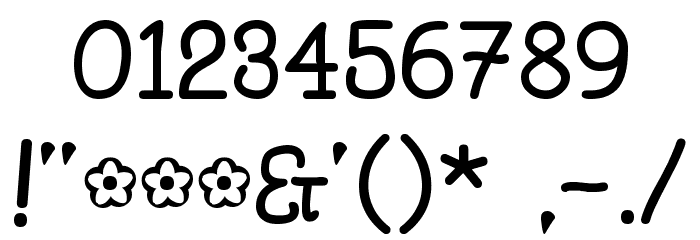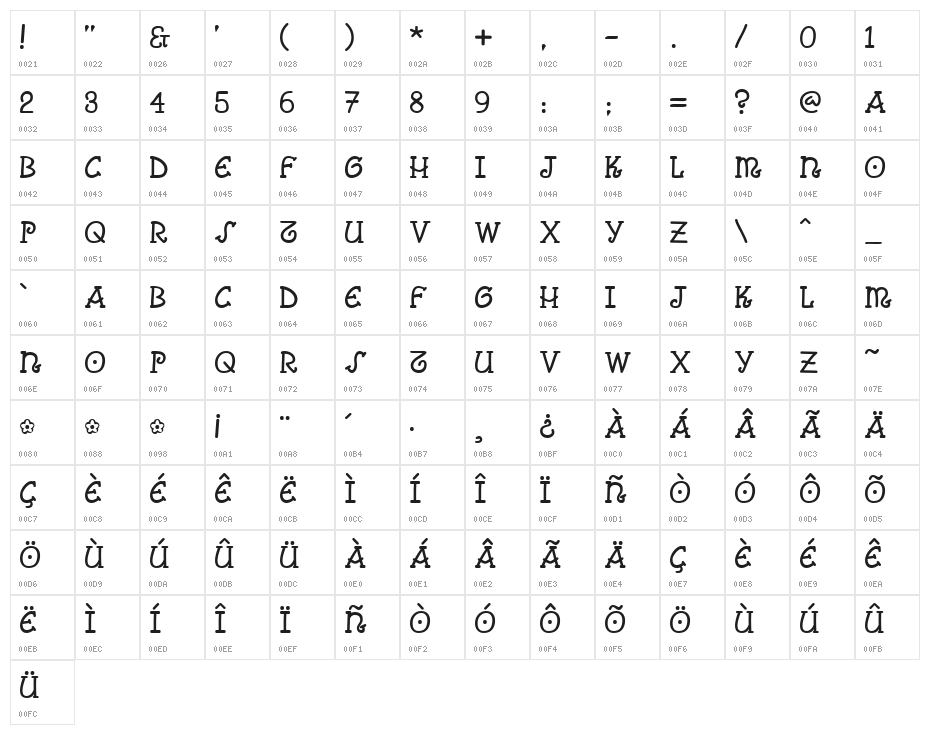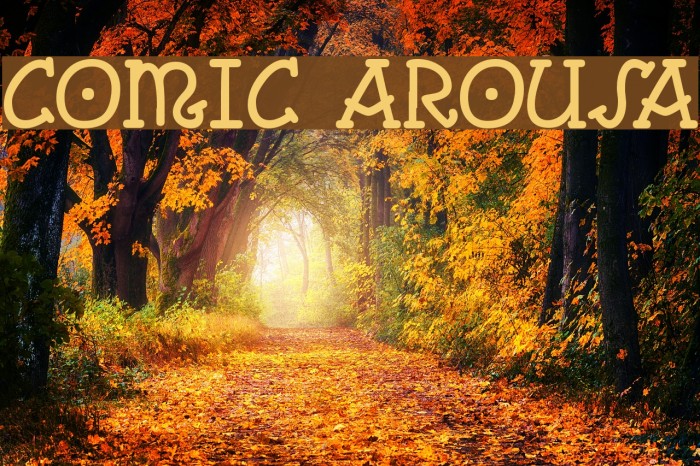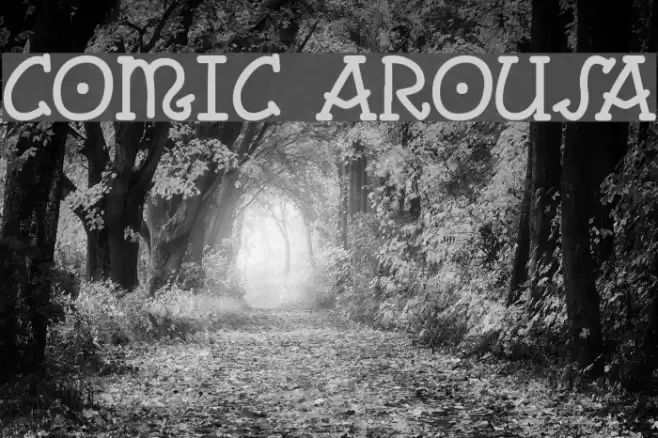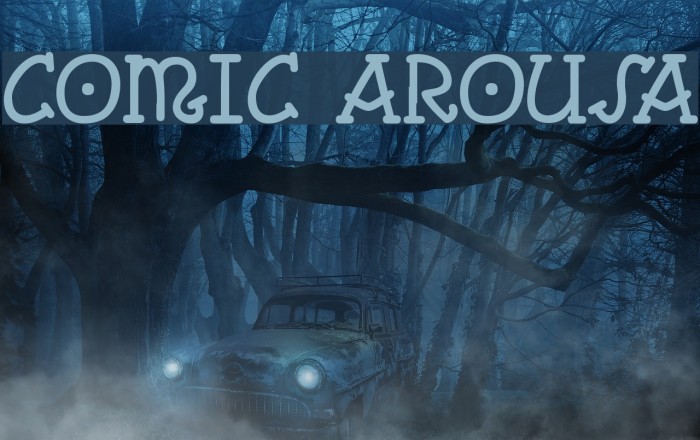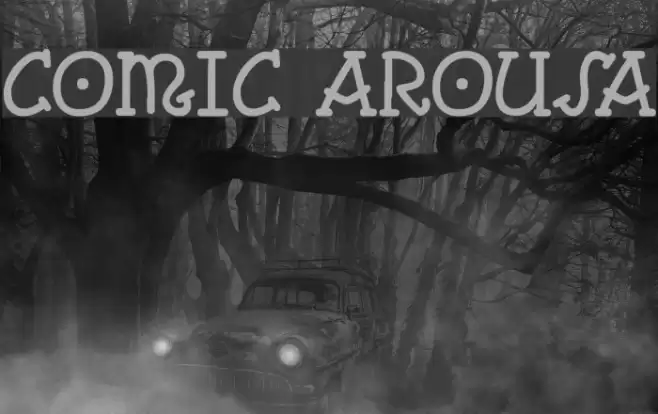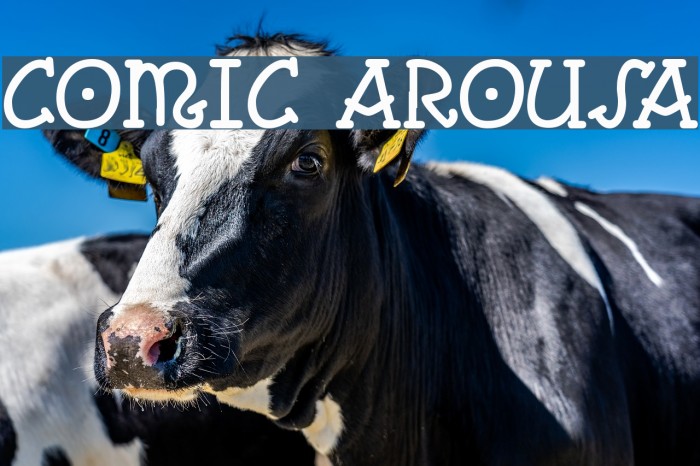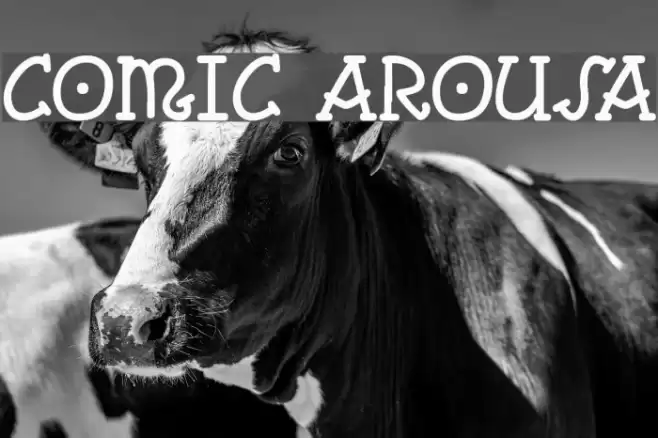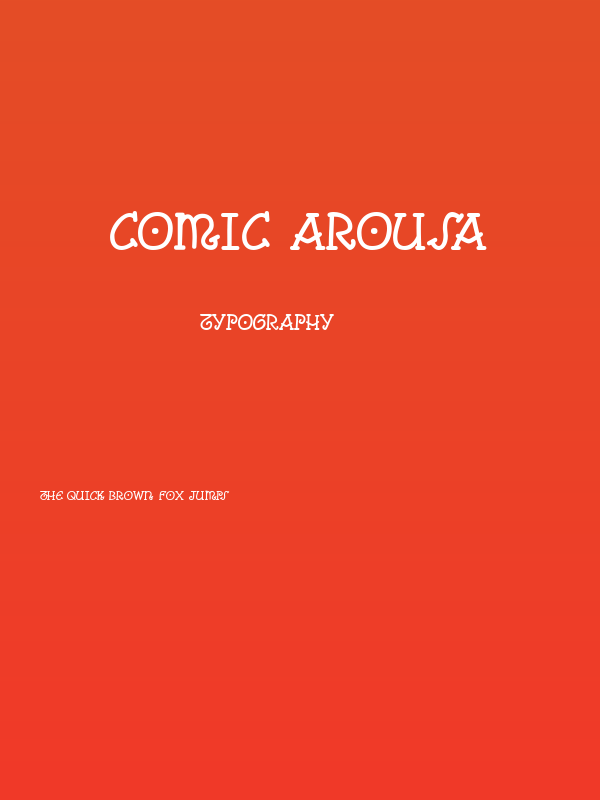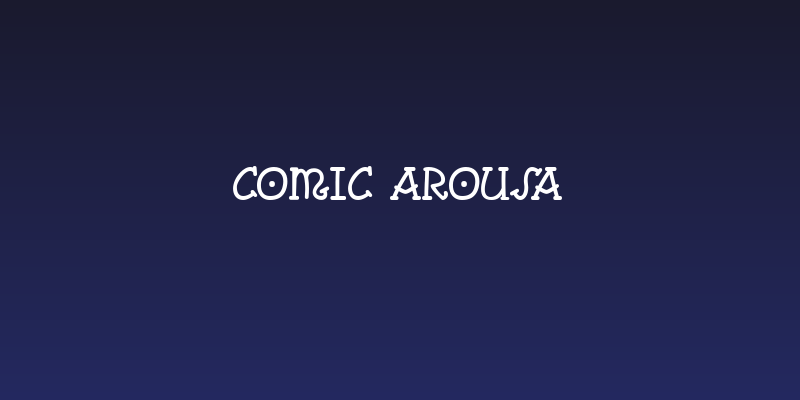
Comic Arousa Font
Comic Arousa Description
This font features a playful and whimsical design, characterized by its bold and rounded letterforms. Each character is adorned with unique, decorative elements that give it a distinctive, cartoonish appearance. The strokes are consistent in weight, contributing to a cohesive and balanced look. The font's style is reminiscent of comic book lettering, with a fun and informal vibe that makes it suitable for lighthearted and creative projects. The special characters maintain the same playful aesthetic, enhancing the overall theme.
| Overall Style | Playful, Cartoonish |
| Proposed Projects | Ideal for children's books, comic strips, playful branding, and creative posters. |